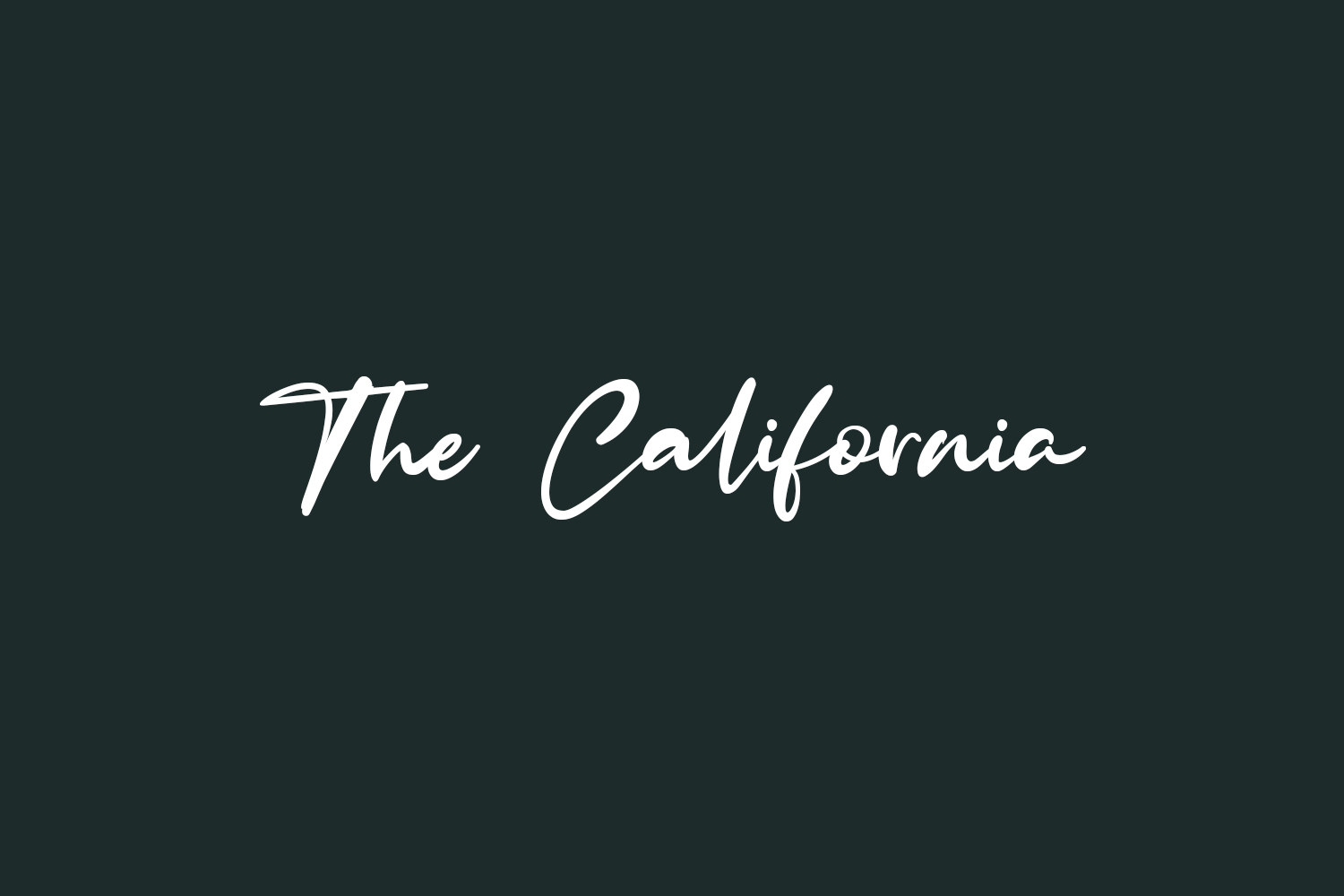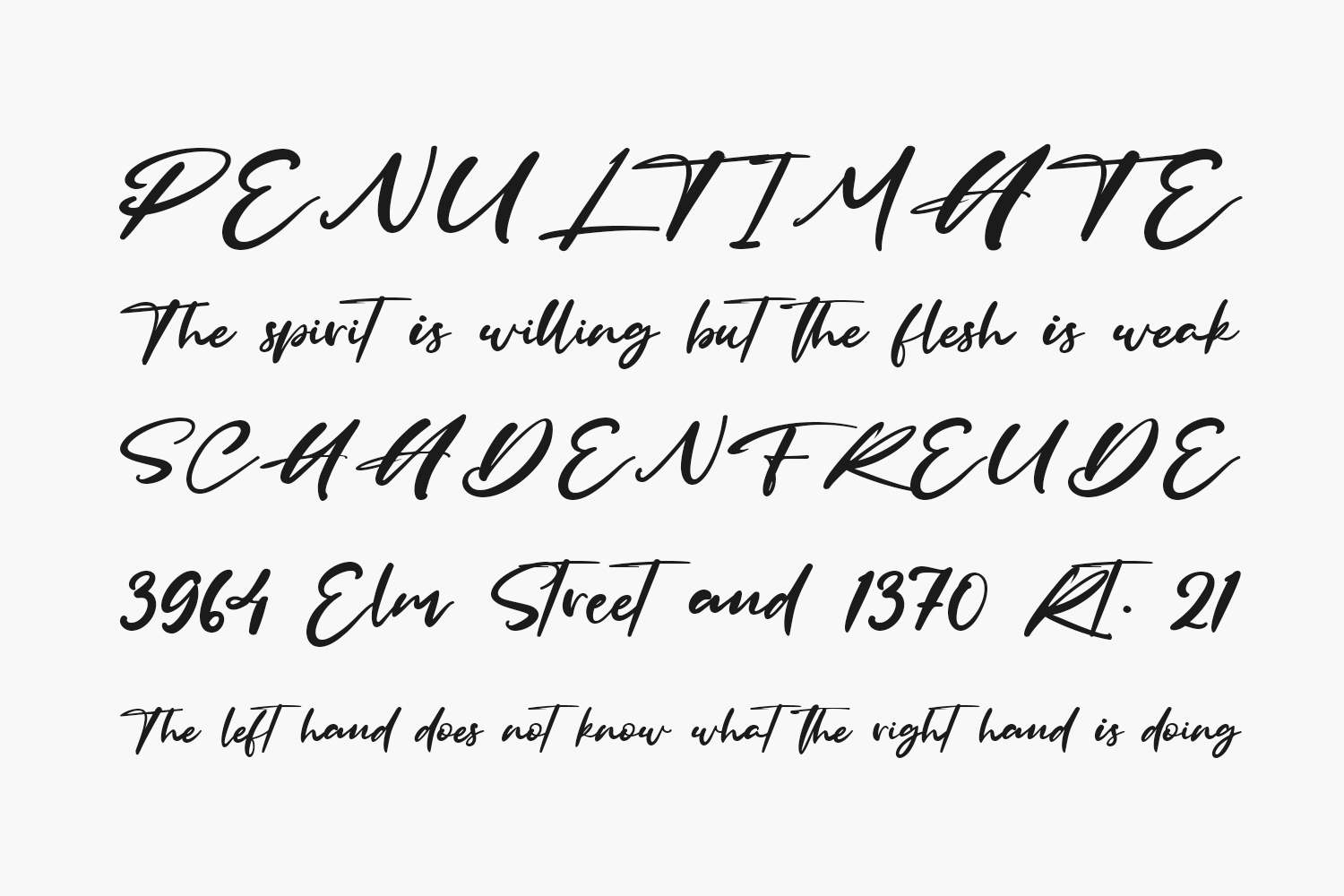
Introducing The California Free Font, a contemporary and whimsical handwritten script font. Ideal for both crafters and designers, this font is tailored to cater to individuals seeking a captivating and rejuvenating aesthetic for their designs. The California Free Font is free for personal use only. Please purchase the full version for commercial use.